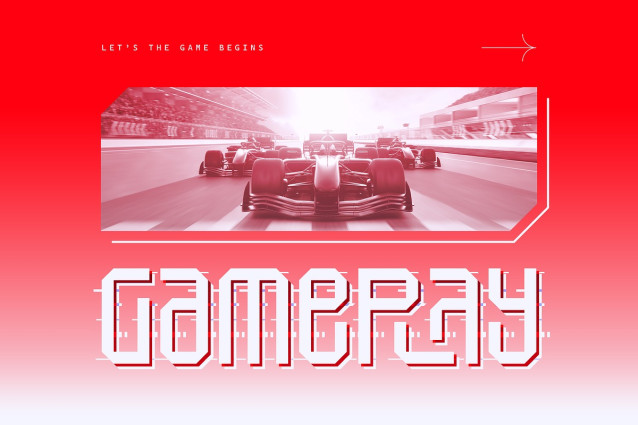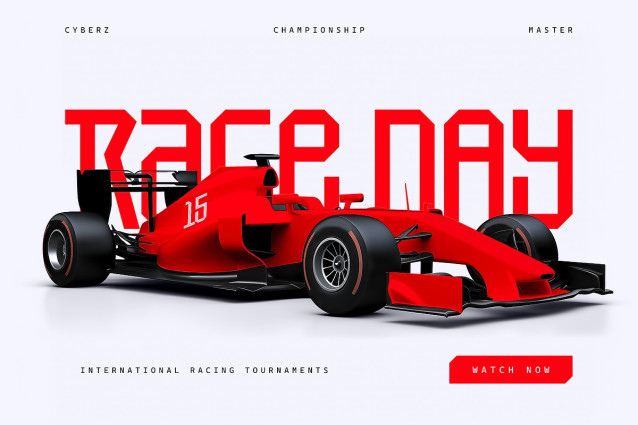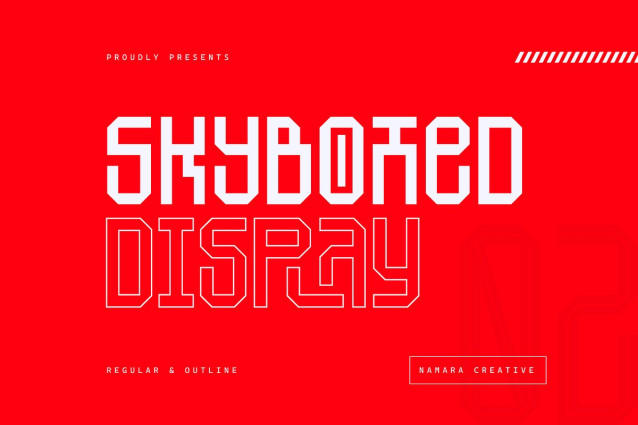
SkyBoxed Font
SkyBoxed Font a modern futuristic display font. Powerful font boasts a cutting-edge design inspired by strength and assertiveness. It’s the perfect choice for sports jerseys, logos, headlines, posters, esports advertising, and any project that demands impact and distinction.